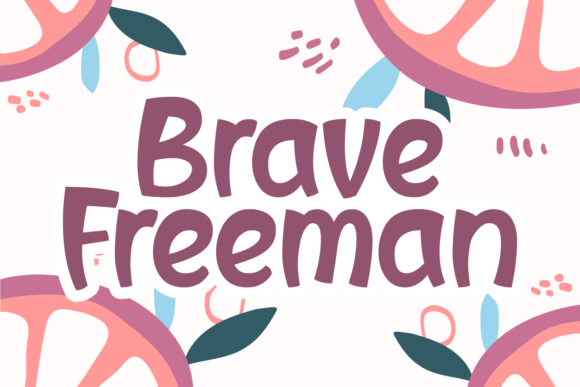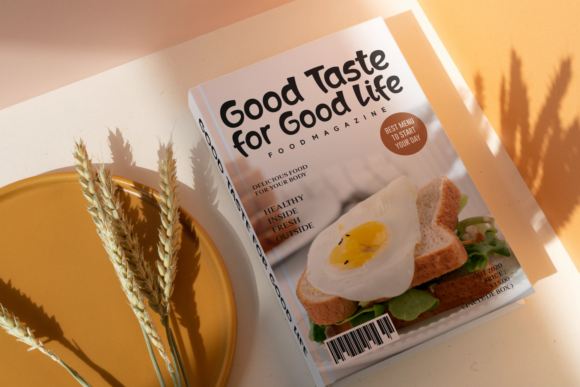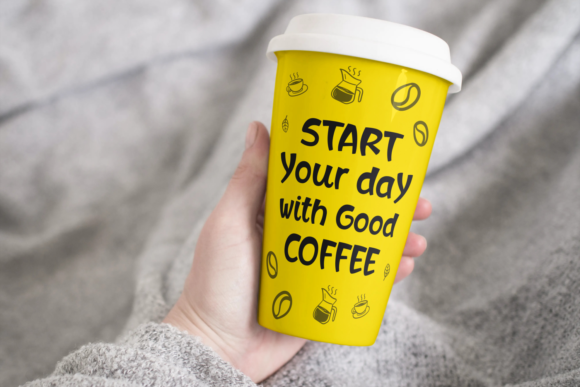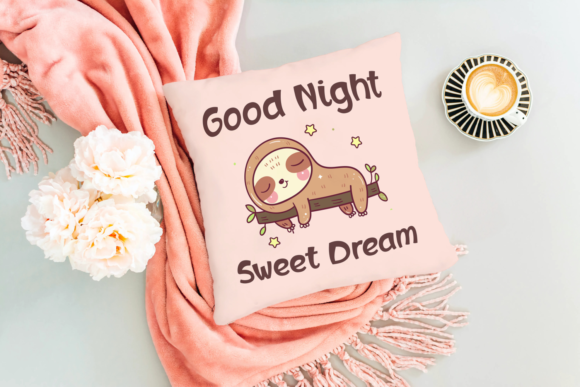
The Perfect Companion for Your Next Creative Project
Have you ever been stuck in a creative rut, staring at a blank page or screen, unsure of where to begin? We’ve all been there. But what if you had a secret ingredient to add some excitement to your next project? Enter the Brave Freeman Font, a simple, modern, and quirky display font that’s sure to bring some much-needed flair to your work.
This fun display font is designed to make a statement, and with its unique character, it’s the perfect addition to any creative project. Whether you’re designing a logo, creating a social media graphic, or writing a blog post, the Brave Freeman Font is sure to stand out. And for designers, it’s a valuable asset that can help take your work to the next level.
Brave Freeman Font Key Features
- Font Family: Brave Freeman Font is a sans-serif font family designed for modern and bold typography.
- Character Set: Supports a wide range of languages, including Latin, Cyrillic, Greek, and many others.
- Font Size: Available in various font sizes, ranging from 8pt to 72pt, making it suitable for various applications.
- Resolution: Designed to be scalable, making it suitable for both screen and print use, with a resolution of up to 300 DPI.
- Unique Characteristics: Brave Freeman Font features a bold and modern design, with a unique combination of geometric and organic shapes, making it perfect for headlines, titles, and other display typography.
Designer Review: Brave Freeman Font
Overall, I’d say the Brave Freeman Font is a decent addition to any font library. ✨ The font’s unique blend of modern and vintage elements makes it perfect for projects that require a touch of elegance and sophistication.
- ✨ The font’s high legibility, making it suitable for body text and headings.
- ✨ The wide range of weights and styles, allowing for versatility in design applications.
- ✨ The font’s ability to evoke a sense of confidence and determination, making it perfect for projects that require a strong, bold tone.
However, there are some limitations:
- ⚠️ The font’s design may not be suitable for projects that require a more minimalist or subtle aesthetic.
- ⚠️ The font’s bold weights may be too overpowering for certain design applications, such as small text or intricate layouts.
Overall, I’d give the Brave Freeman Font 3.5 out of 5 stars. While it has its limitations, the font’s unique charm and versatility make it a solid addition to any designer’s library. With a bit of creative experimentation, the Brave Freeman Font can elevate any project to the next level.
For optimal results, use the Brave Freeman Font in headings and titles to create a bold and eye-catching effect.
- Headings and titles for websites and marketing materials.
- Logo design and branding.
- Print materials such as business cards and brochures.
Alternatives to Brave Freeman Font
Pacifico is a beautiful script font that works well for designs that require elegance and sophistication. It is ideal for use in wedding invitations, luxury brands, and other high-end designs. Compared to Brave Freeman Font, Pacifico has a more refined and polished look, making it suitable for formal occasions.
Great Vibes is a modern script font that exudes a sense of fun and playfulness. It is perfect for designs that require a carefree and adventurous feel, such as music festivals, travel brands, or summer promotions. Compared to Brave Freeman Font, Great Vibes has a more relaxed and casual tone, making it suitable for informal designs.
Dancing Script is a elegant script font that works well for designs that require a touch of sophistication and glamour. It is ideal for use in high-end fashion brands, luxury hotels, and other premium designs. Compared to Brave Freeman Font, Dancing Script has a more dynamic and expressive look, making it suitable for designs that require a sense of movement and energy.